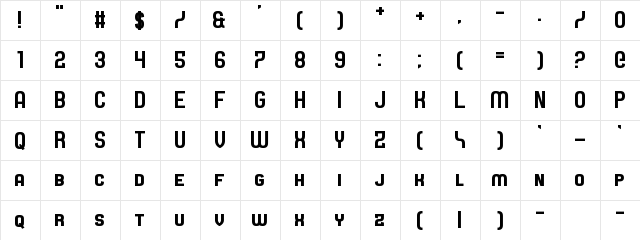
Castforce Regular
Design Context for Castforce Typeface
Castforce brings high-energy athletic personality to the page — its confident, muscular forms are built for impact.
A natural choice for gym brands, fantasy sports, jersey lettering, and action-driven headlines.
Pro Tip: Use Castforce in all-caps headlines where its athletic energy can fully express itself. Pair with a solid, simple sans for supporting text.